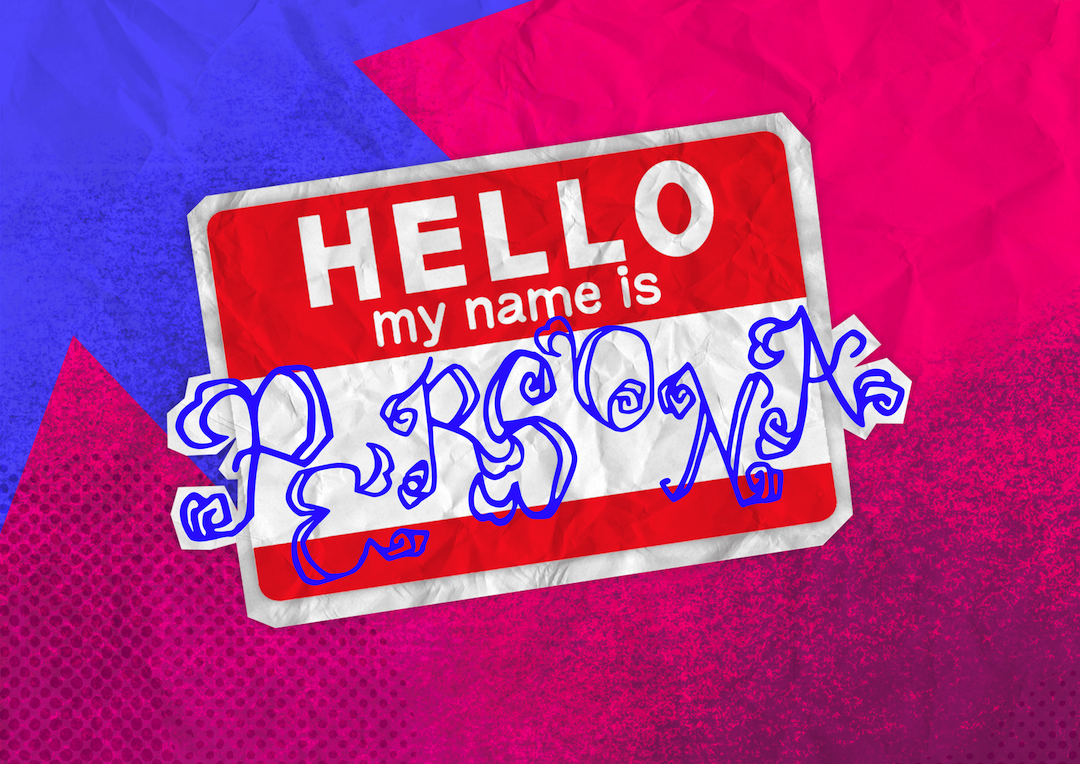
Persona is a display font, inspired by Wetherspoons' identity crisis due to impact of British pub culture. The design uses influences from 1800s Georgian architecture seen in The Kentish Drovers, and combines it with graffiti artwork seen on and around the building to symbolise the unruly and turbulent atmosphere of the pub. While the font contains elements that appear classical and decorative, it is designed to look handmade and rough to appear as if it is spray-painted. The tension between sophistication and lack of inhibition makes it wonderfully messy, yet it somehow creates a picture of chaos coexisting with order.